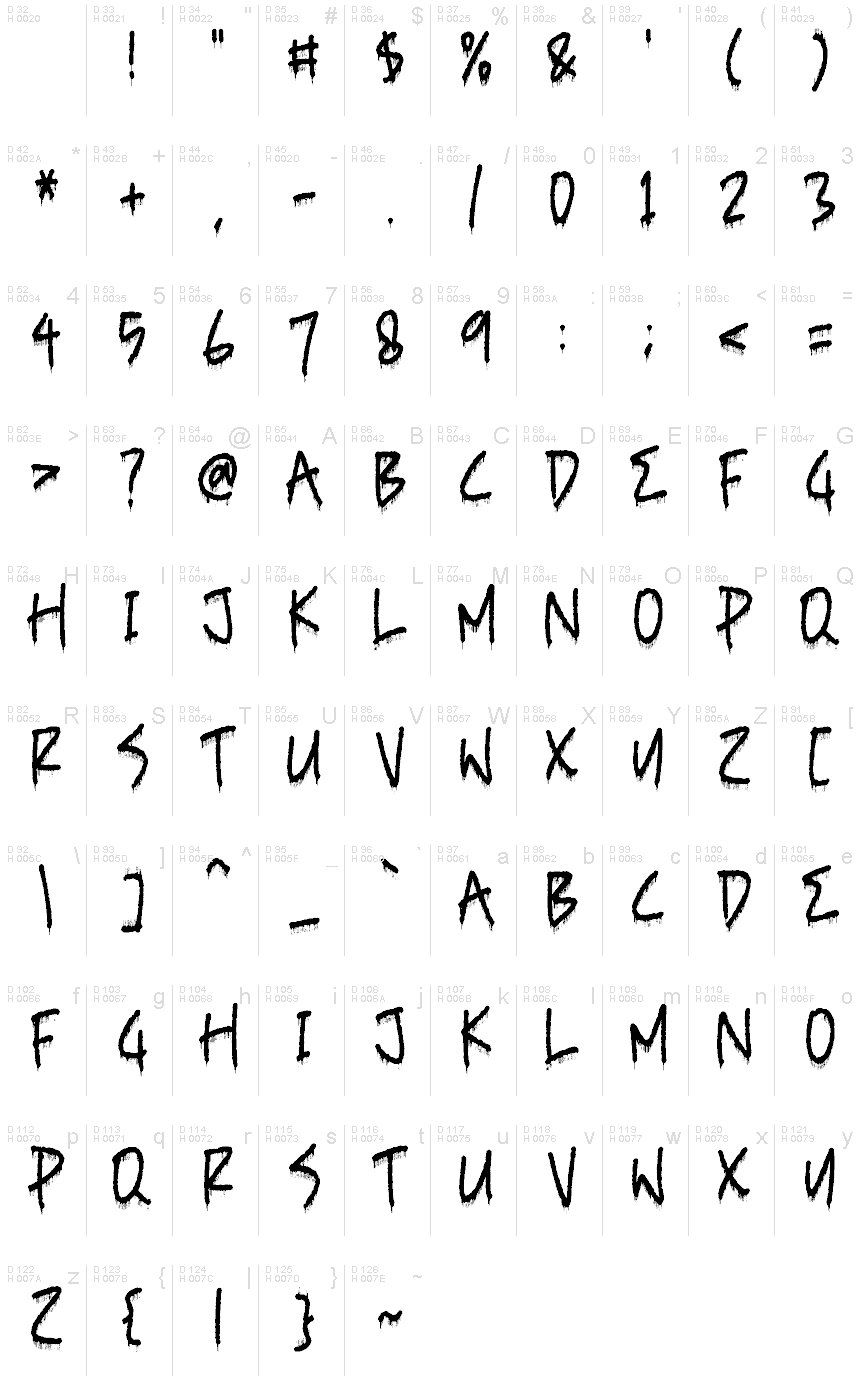
Guilty Chaos
Guilty Chaos font was designed by Perspectype Studio at Letterena.com. It’s a display scary font, the usage of which will add an edgy and distressed look to your ideas. This grunge-inspired raw typeface features an irregular appearance that adds a lot to its scary essence and its overall impression.
There’s quite a wide range of contemporary applications for this free font. It’s readable enough to decorate book covers, posters, and banners while still being suitable for alternative fashion branding projects. Consider also trying it on music album covers, web headers, social media posts, videos, horror movie posters and videos…